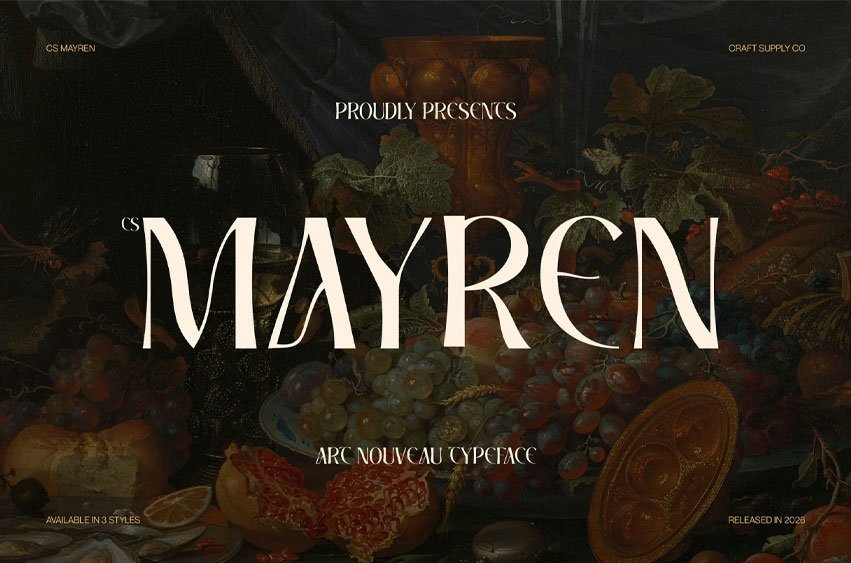
Mayren Font
Mayren Font Modern Sans Serif with Art Nouveau Elegance Modern Sans Serif with Artistic Influence This is a modern sans serif font that blends contemporary simplicity with the graceful charm of Art Nouveau. Its clean construction keeps the design fresh and current, while subtle artistic influences give it a refined and stylish personality. The result is a typeface that feels elegant, trendy, and visually captivating.
Art Nouveau Curves with Organic Flow The defining feature of this font lies in its smooth curves and organic flow inspired by Art Nouveau design. These gentle, flowing shapes bring a sense of movement and harmony to every letterform, creating typography that feels graceful and expressive without losing clarity. The organic rhythm adds warmth and sophistication to any composition.
Elegant Yet Trend-Forward Style This font balances elegance with a fashion-forward attitude, making it perfect for modern creative projects. Its stylish forms communicate luxury and refinement while maintaining a contemporary edge that feels fresh and relevant. This combination allows the font to stand out in high-end visual environments.
Perfect for Fashion and Editorial Design Ideal for luxury fashion, posters, and editorial spreads, this font shines in headlines, titles, and premium layouts. Whether used in fashion campaigns, magazine design, or upscale branding, it delivers an elegant and trendy typographic presence that enhances modern visual storytelling.